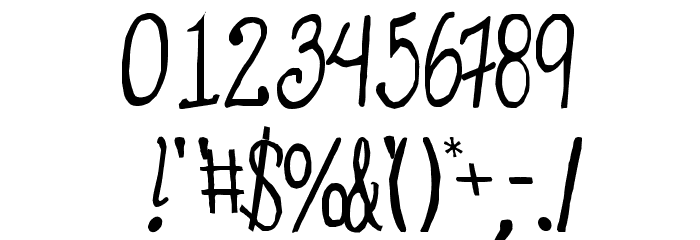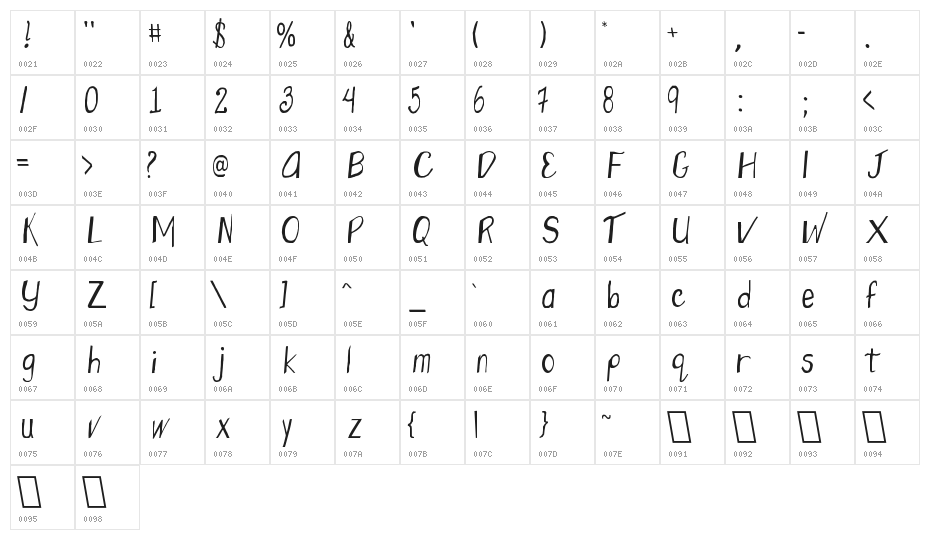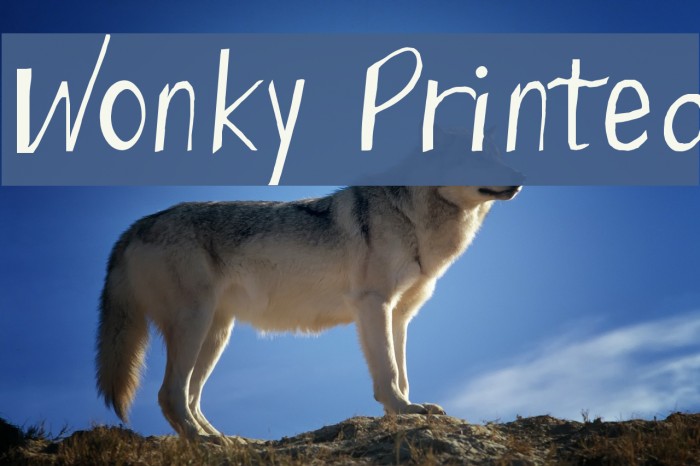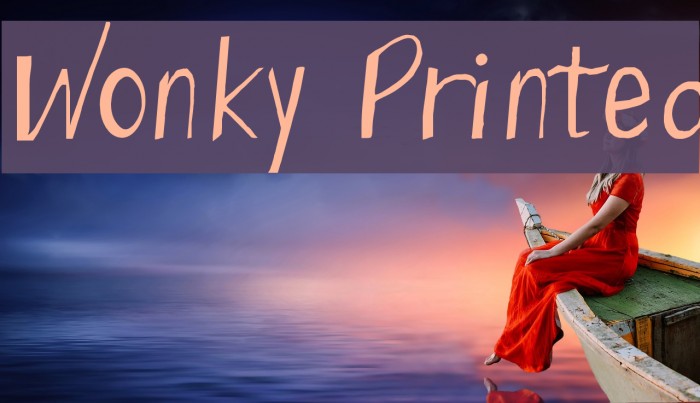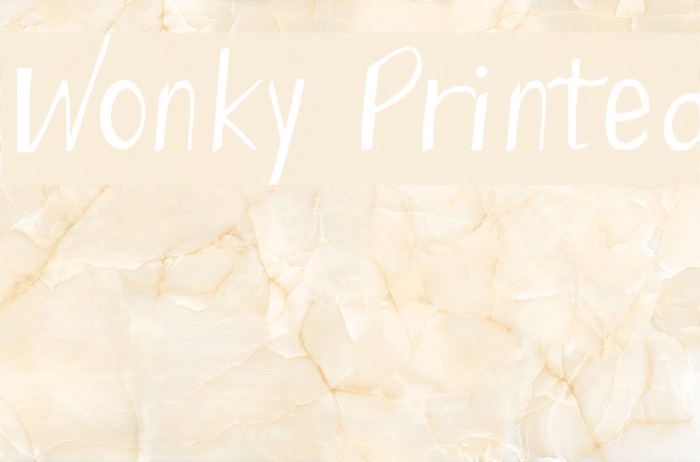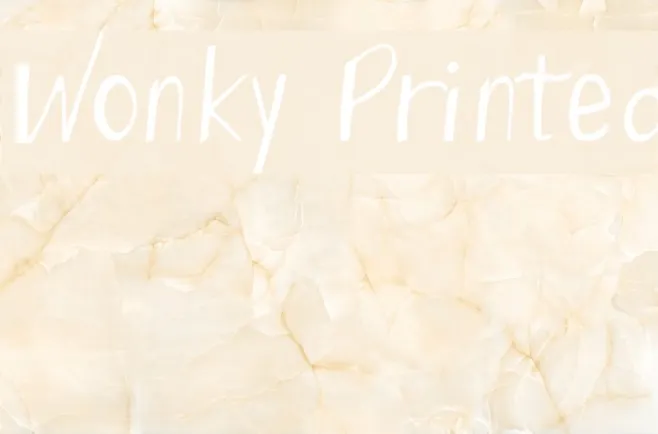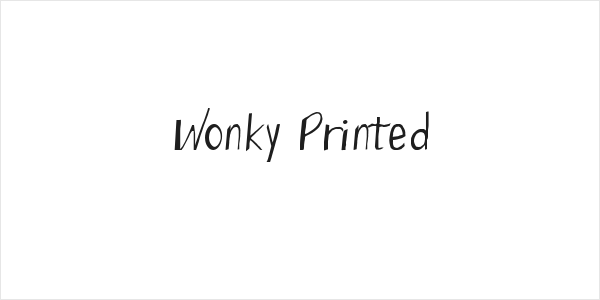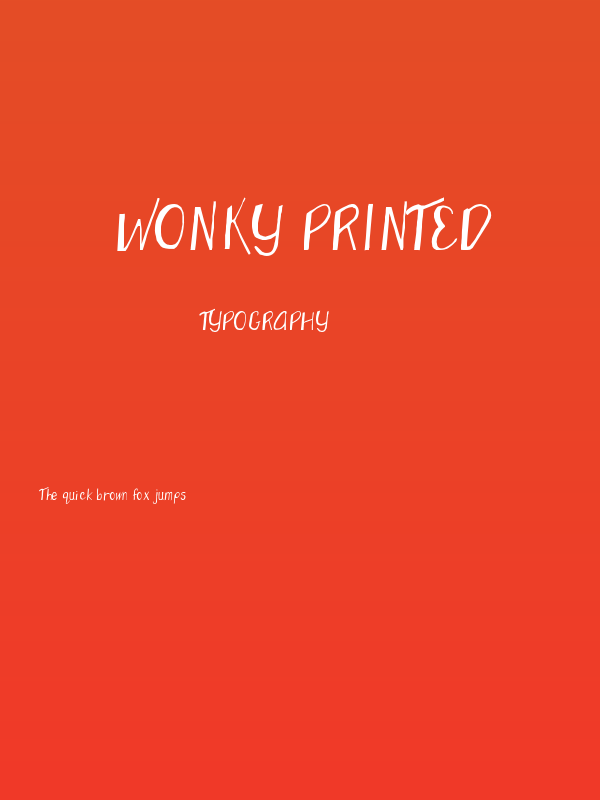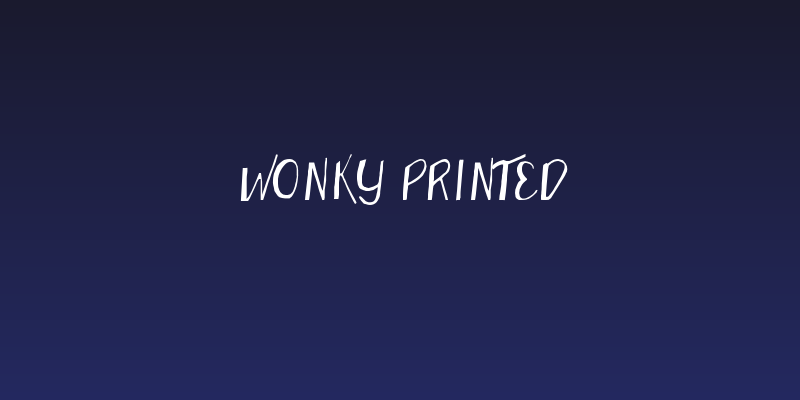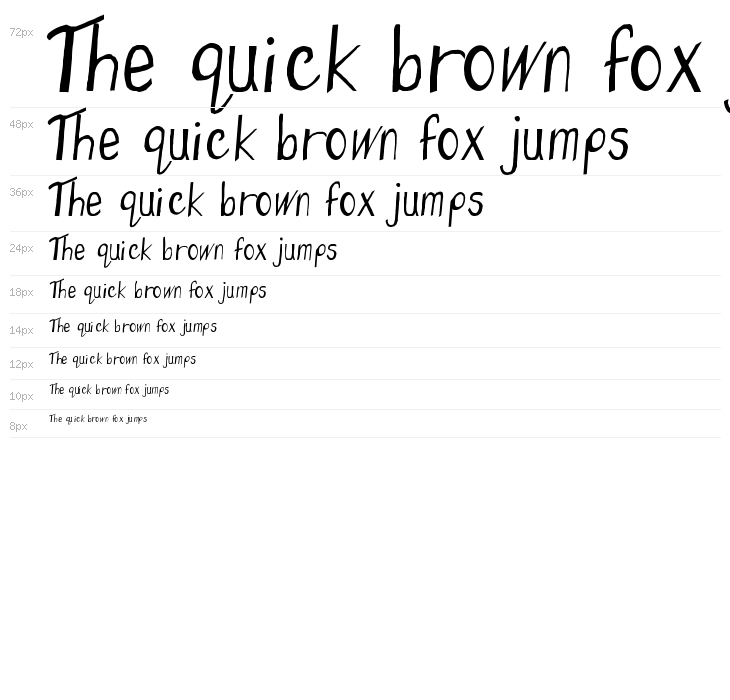
Wonky Printed Font
Wonky Printed Description
This font features a playful and quirky design, characterized by its uneven and irregular letterforms. The strokes vary in thickness, giving it a hand-drawn, whimsical appearance. The uppercase and lowercase letters maintain a consistent style, with some letters leaning slightly, adding to the font's dynamic and lively feel. The numbers and special characters follow the same playful aesthetic, making the font suitable for creative and informal projects. Its unique style stands out, making it ideal for attention-grabbing designs.